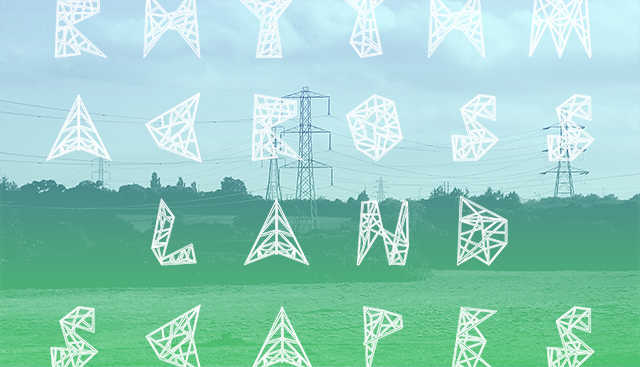
Pylon by Arthur Reinders Folmer is a free outlined decorative display font with towering angular letters that resemble skeletal frameworks assembled from beams, braces, and sharply joined supports. Narrow outer contours contain dense webs of crossing lines and uneven internal angles, giving the alphabet a restless hand-drafted complexity and a strongly architectural silhouette.
Industrial and architectural themes make it especially convincing for experimental music posters, construction-themed branding, event signage, and exhibition graphics, where the lettering can double as a title and a structural illustration. In editorial design, it suits architecture magazine covers and feature openers centered on engineered spaces and speculative structures.